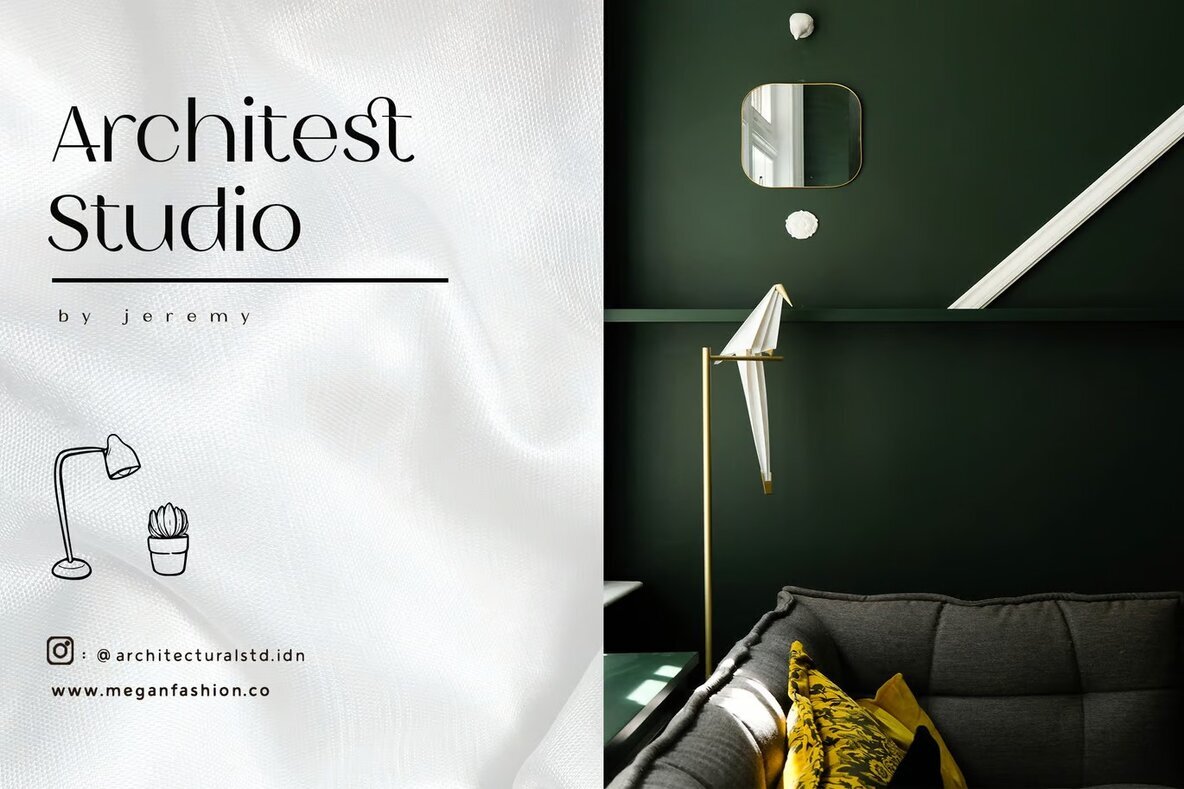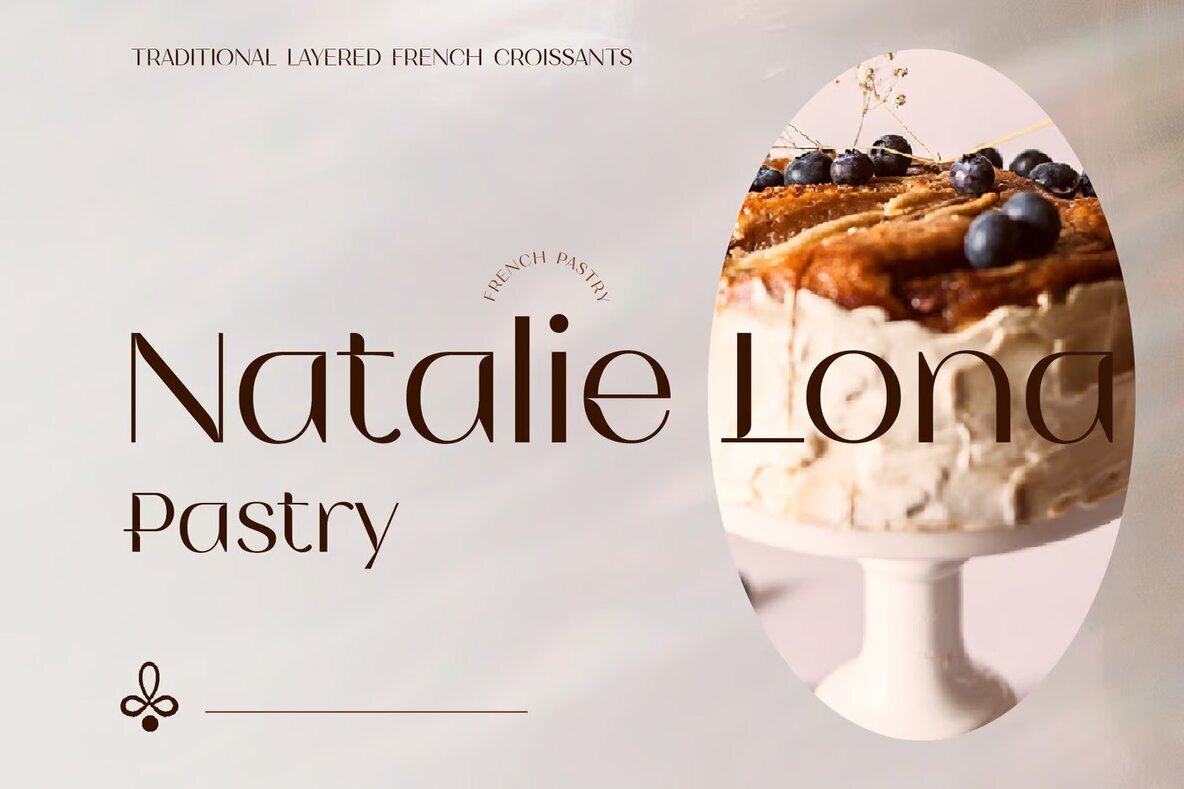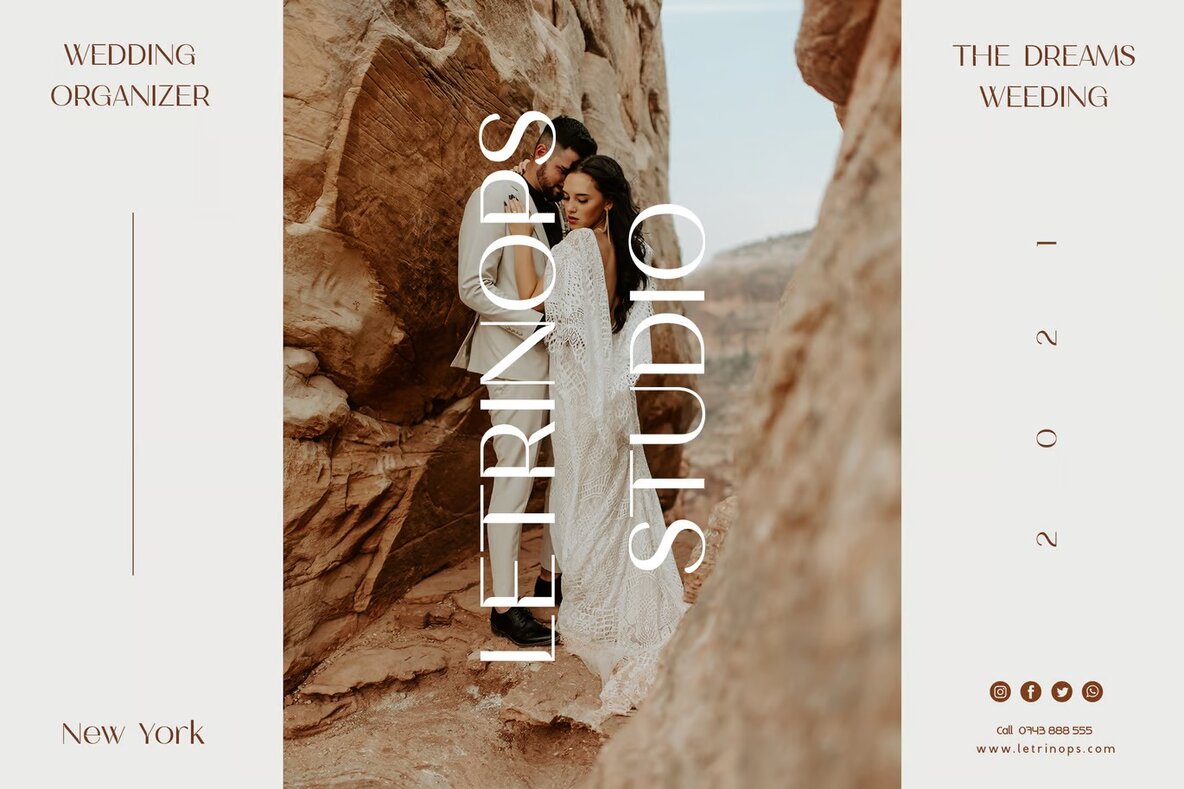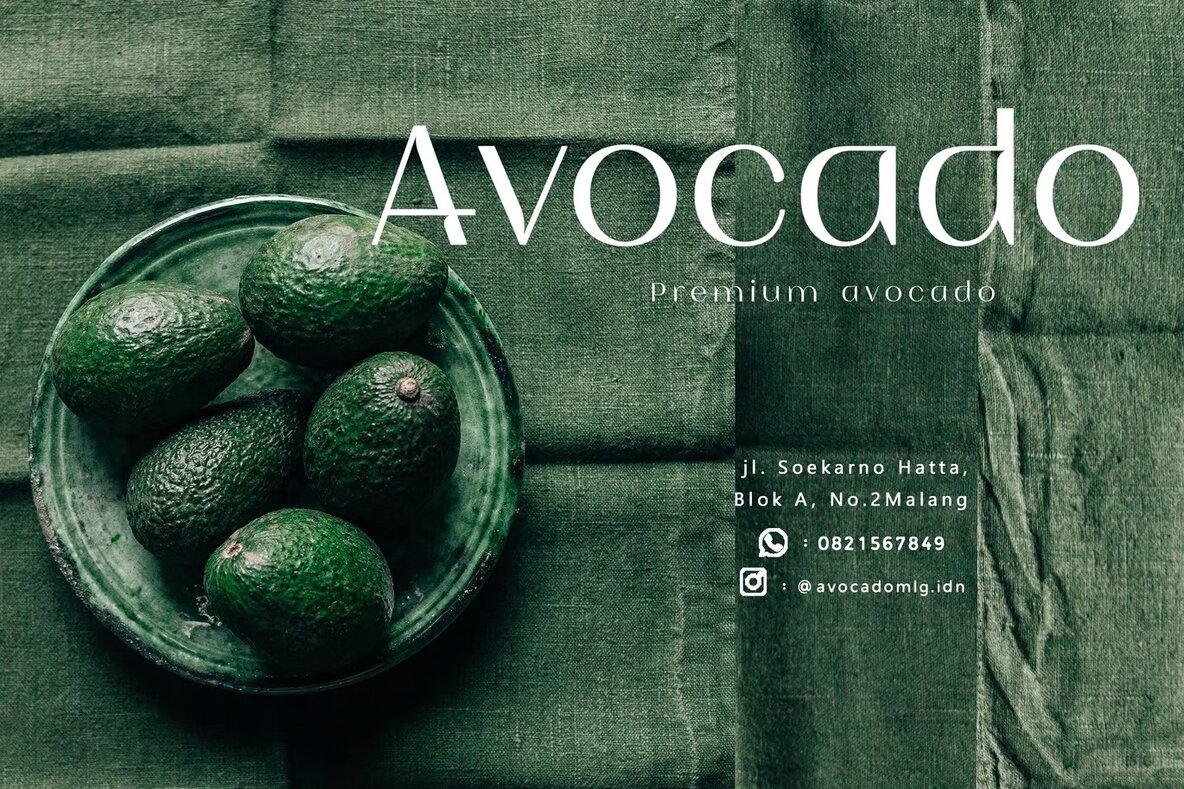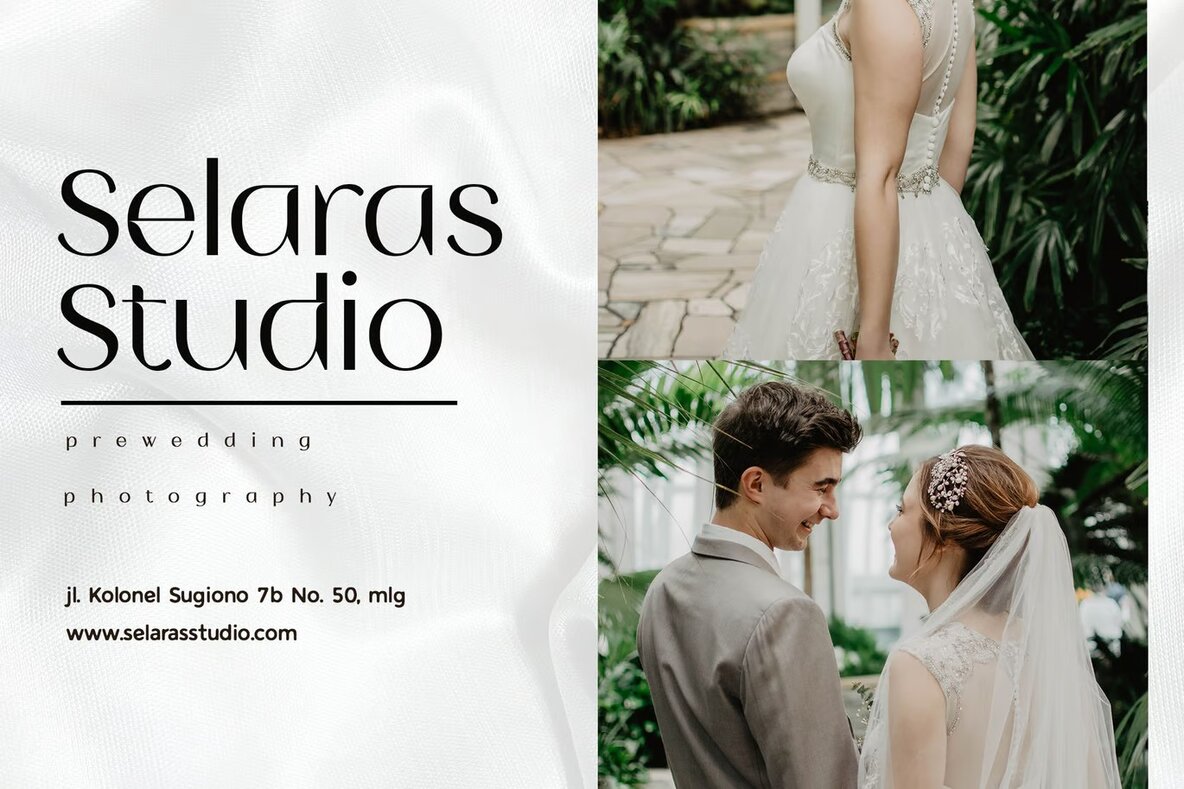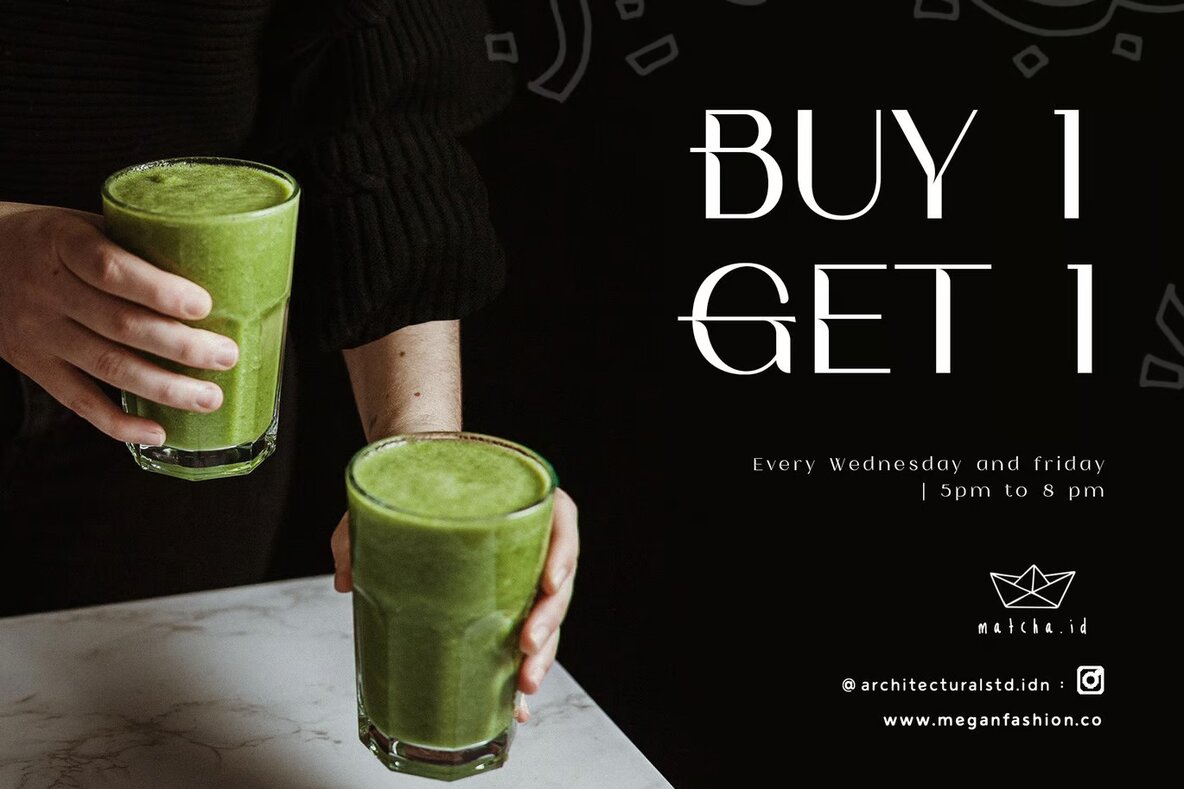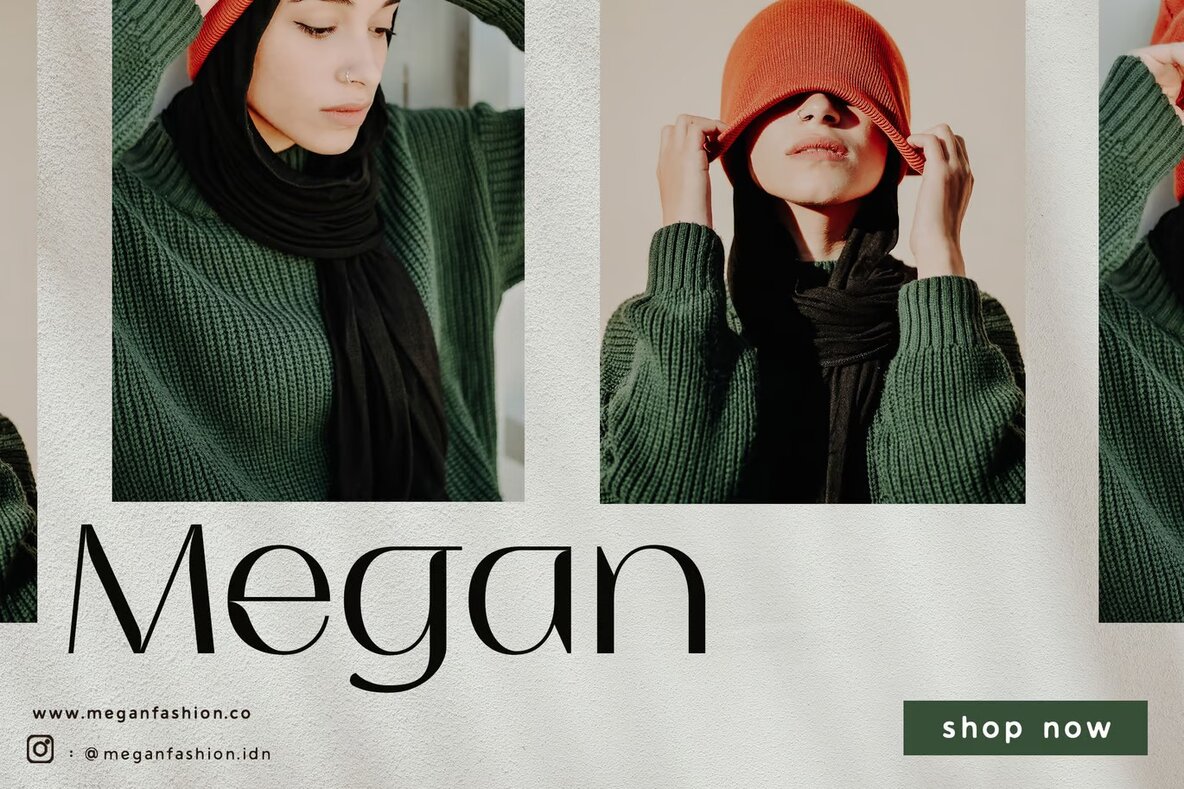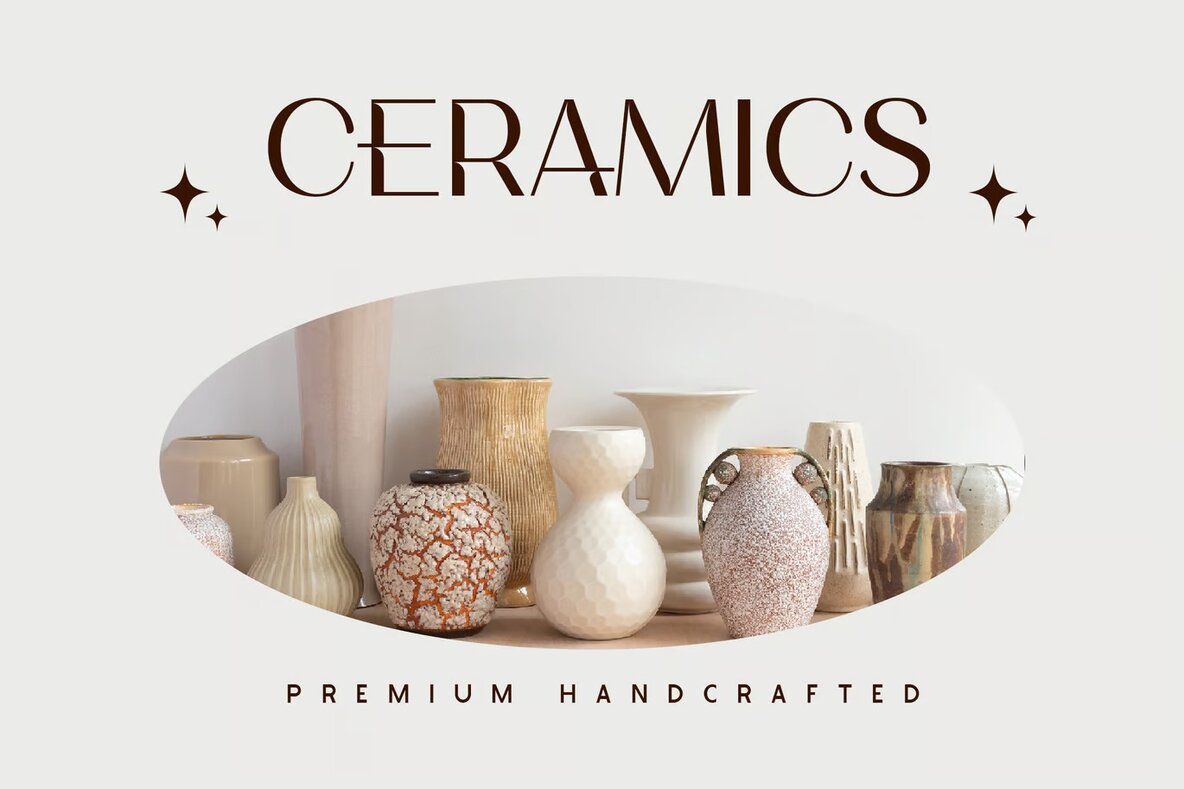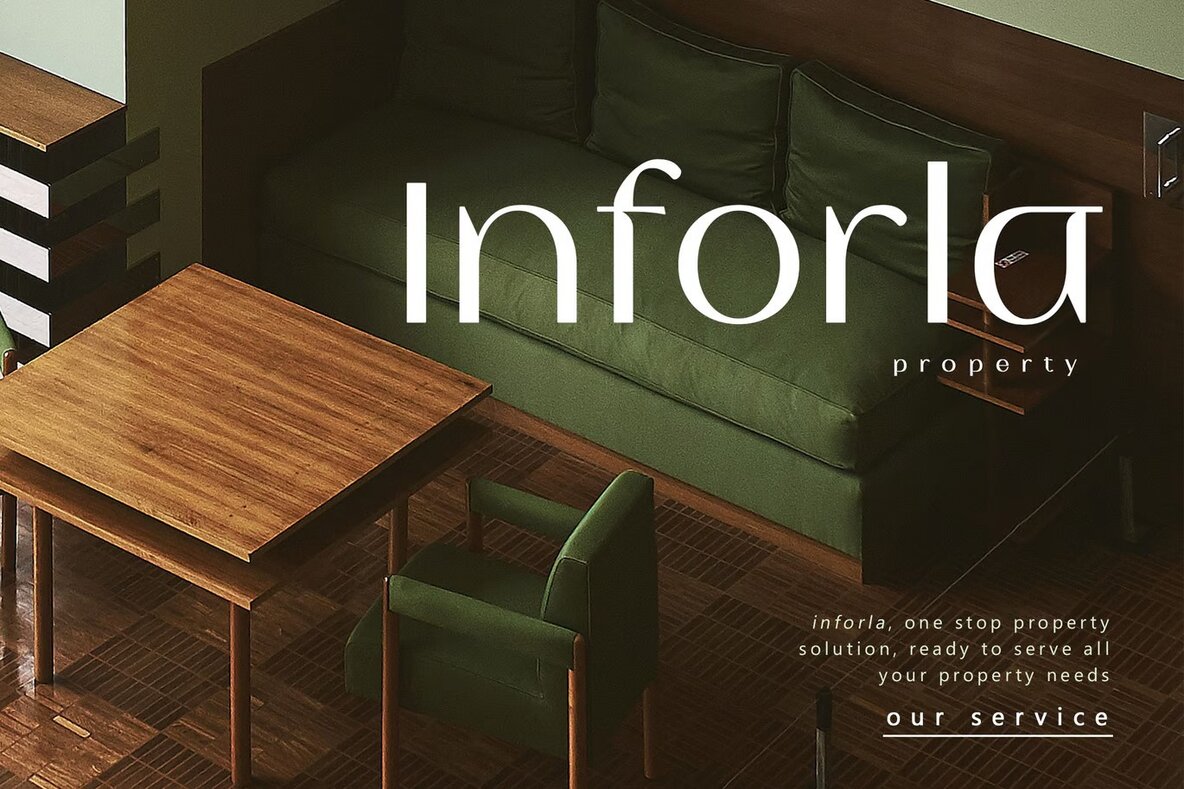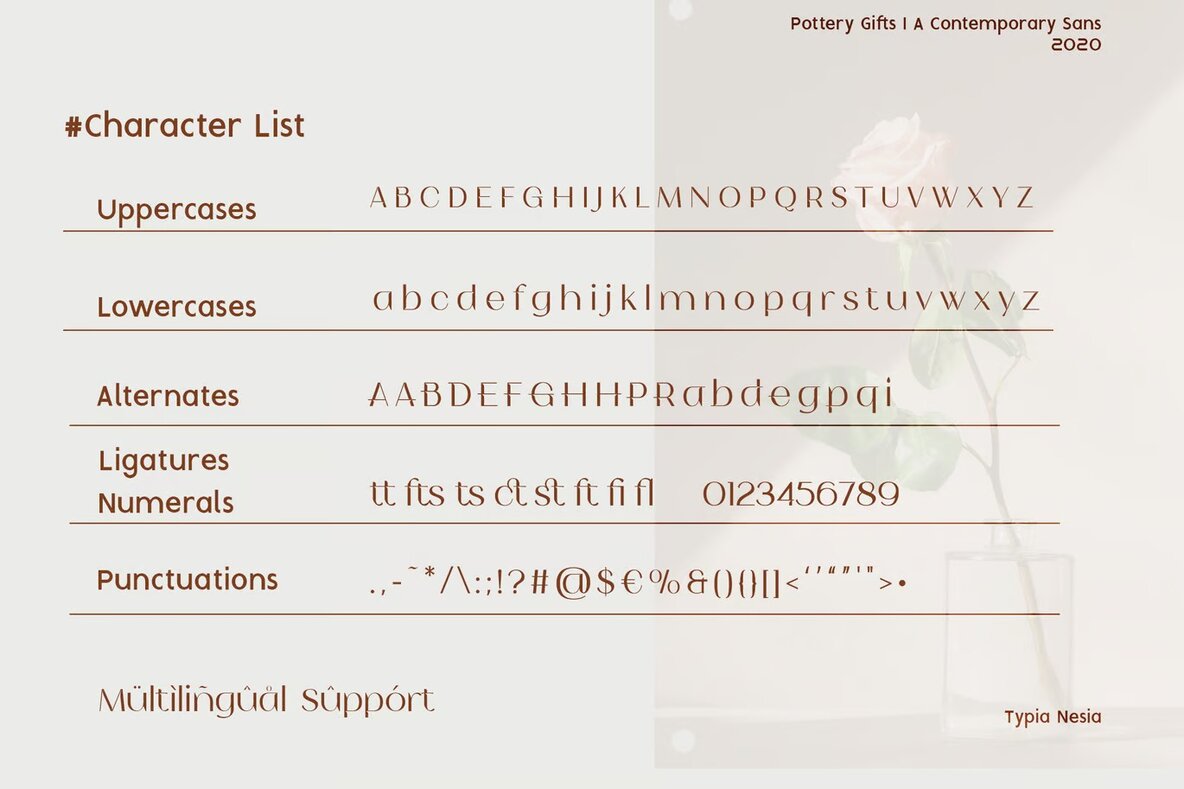
Pottery Gifts Font
Pottery Gifts Regular
Pottery Gifts is a sophisticated sans serif font known for its elegant glamour and stylish appeal. This expressive and modern display font features a selection of alternates and ligatures, offering creative flexibility for a variety of typography designs. Ideal for projects that demand a touch of class, Pottery Gifts is a perfect choice for luxury logos and branding, as well as classy editorial designs and women's magazines.
Whether designing for cosmetic brands, fashion promotions, or art gallery and museum branding, Pottery Gifts provides versatility and beauty. It's equally suitable for boutique branding, stationery, modern advertising, and more. This font seamlessly enhances projects like card invitations, art quotes, home decor, and book titles, adding a sophisticated touch to any special event. Embrace the elegance of Pottery Gifts to infuse your designs with modern class and beauty.